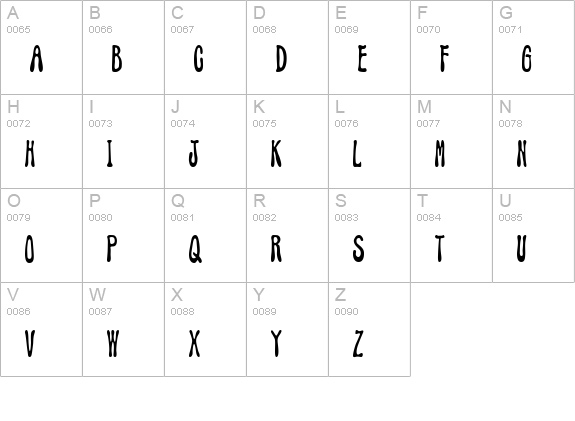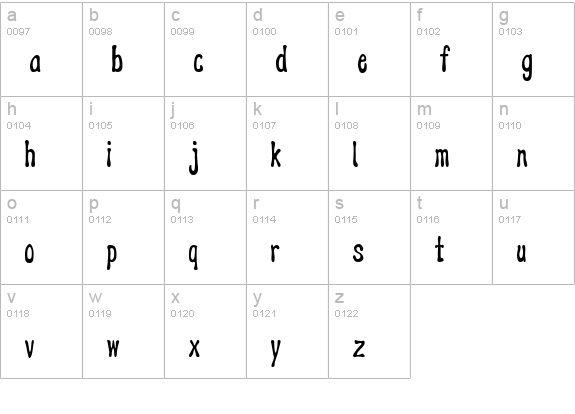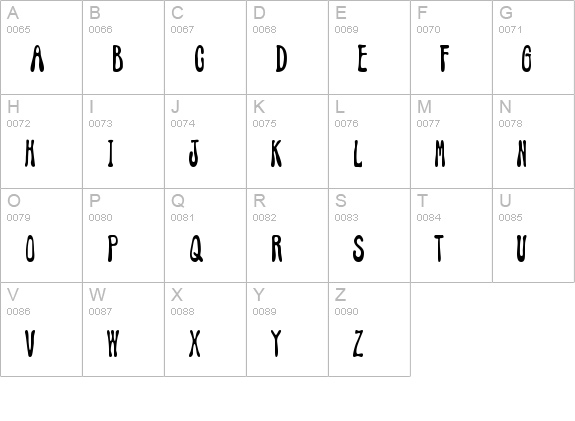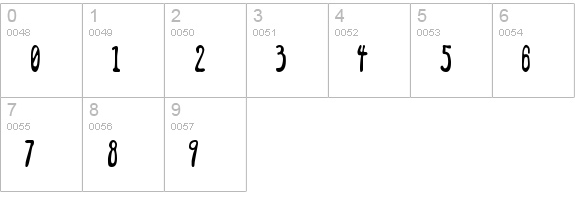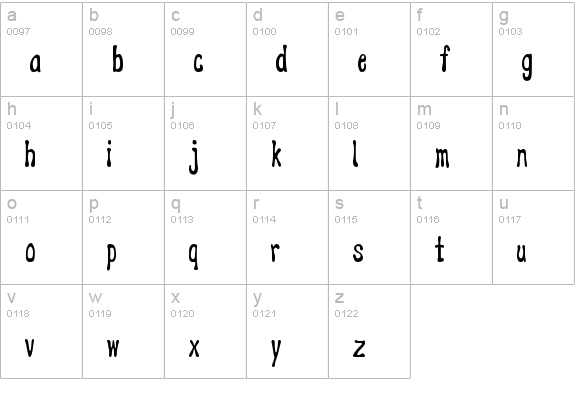
AddJazz Font Details
Introducing AddJazz font - a stylish and modern typeface that brings a touch of elegance to any design project. This versatile font features sleek lines and unique letterforms that exude sophistication and flair. With its bold presence and eye-catching appeal, AddJazz is perfect for a wide range of applications, from branding and advertising to social media posts and invitations. What's even better is that AddJazz font is available for free download at FontsMarket.com. Now you can easily elevate your designs with this exceptional typeface without breaking the bank. Don't miss out on the opportunity to add a touch of jazz to your projects with this stunning font. Download AddJazz today and let your creativity shine!